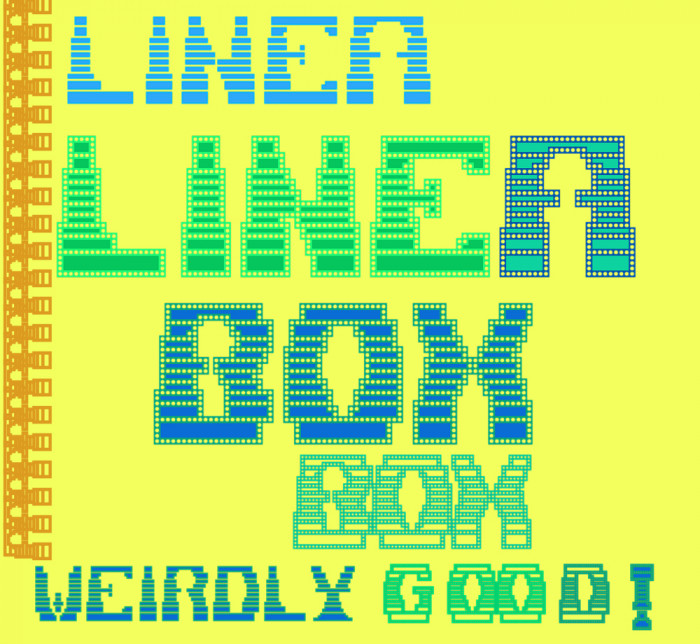
• More than just a little inspired by cookielord's scanlines, mattyou's tripo and by jirinvk's overlay styles that create a complete visual when used together.
Inspired by cookielord's "scanlines", mattyou's "tripo" and by jirinvk's overlay styles that create exciting complete visuals. Here: UC = body, LC = frame; type UC then LC for each letter. Also, experiment with 'space' taps after UCs for interesting lines ;)
Cream (LC) slice (UC) + cook (Aeo) = tasty creation!
Thank you dpla :) Why do I have the impression that you are working towards getting me into La Capitale to bring you some lunch .... Indian korma?  Sauerbraten mit Rotkohl? *looking for glyphical recipes*
Great concept and implementation!
The only complaint I have is about the sample: do those two O's in the word 'good' have to stand so far from G and D and so close to each other?
Cookielord,  I had them spaced to match "weirdly" and then decided to make them look like shouting their surprise like "OOOOO". Now I see them as 2 wide open eyes ;)
@Aeolien - Congratulations on this experiment, Aeolien.  While I really like the design of the uppercase, I was unsure of the lowercase -- that is, until I put them together!  At ~pixel size, it makes for a nice two-tone effect.
Thank you Goatmeal, glad you tested the combination ;) and liked the look. I have added numbers and a few more useful glyphs for text, knowing that Lineabox is useful only for text like headline, shop/advert sign type of work.